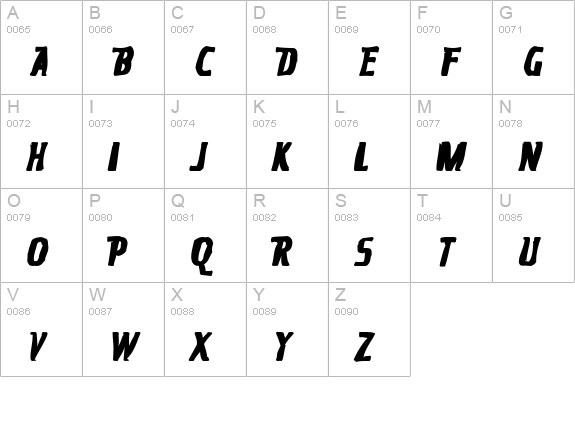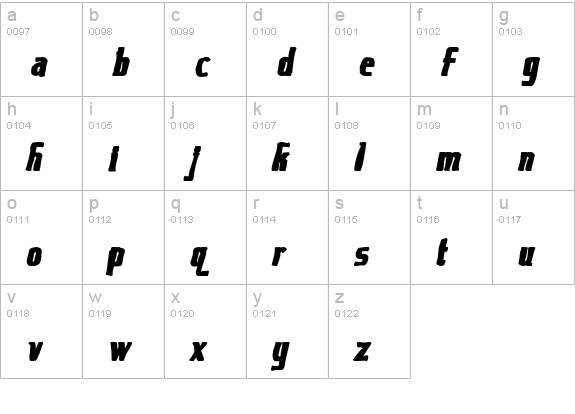
King Richard Ink Font Details
King Richard Ink font is a striking and bold typeface that exudes authority and elegance. With its unique and intricate design, this font is perfect for creating eye-catching headlines, titles, and logos that demand attention. The sharp edges and thick strokes give King Richard Ink a regal and powerful presence on any design project. What makes King Richard Ink font even more appealing is that it is available for free download at FontsMarket.com. This means you can easily access this stunning font without any cost, making it a valuable addition to your font collection. Whether you're working on a personal project or a professional design, King Richard Ink font is sure to make a bold statement and leave a lasting impression. Download this majestic font today and elevate your design projects to new heights.